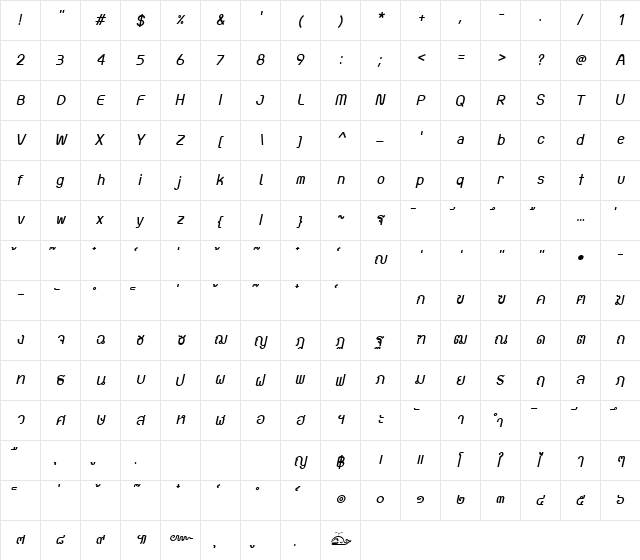
TP Tankhun Bold Italic
| Foundry | Tippawan Sumnavong |
| Designer | Tippawan Sumnavong |
Design Context for TP Tankhun Typeface
TP Tankhun offers clean, dependable letterforms without strong stylistic allegiance, making it a practical choice for designers who need flexibility. The dynamic lean of this cut emphasises speed and emphasis in any layout. Its bold stroke weight gives it real presence on the page.
Pro Tip: Use TP Tankhun for emphasis, pull quotes, and subheadings where its slanted energy can add rhythm to the layout.